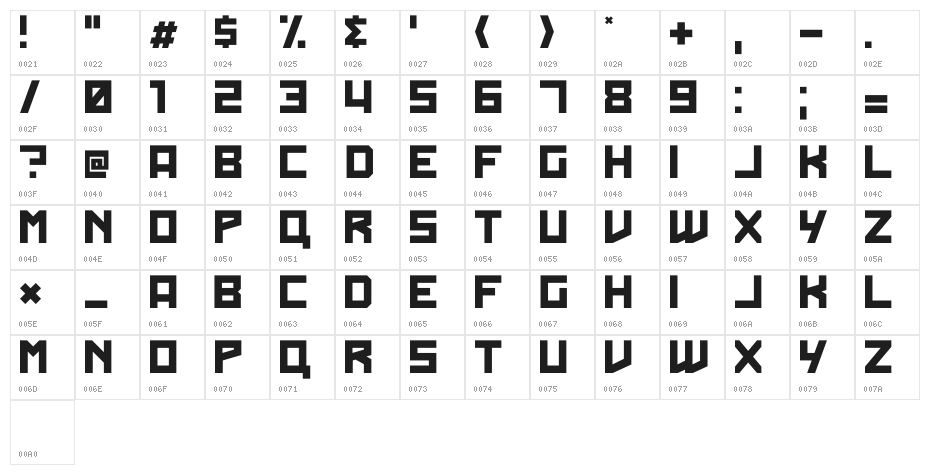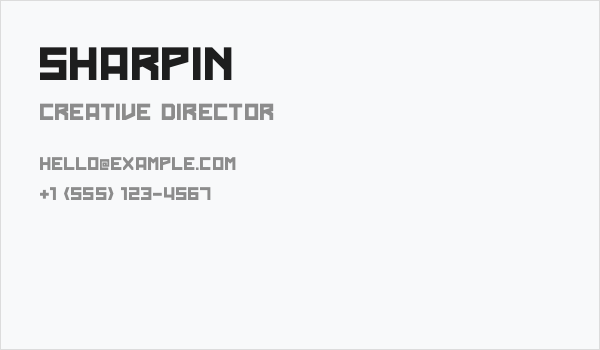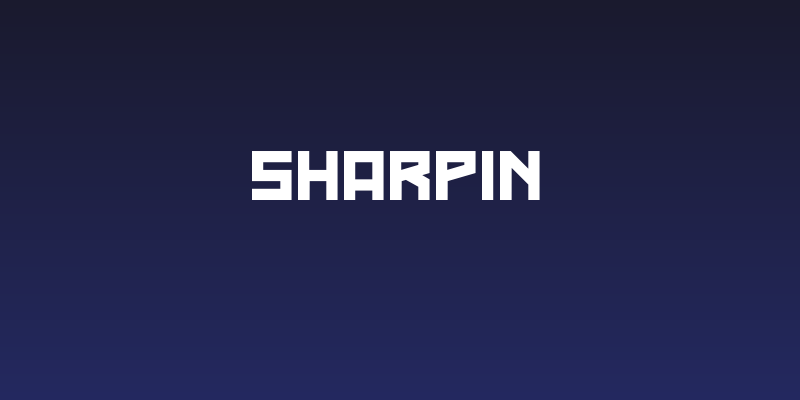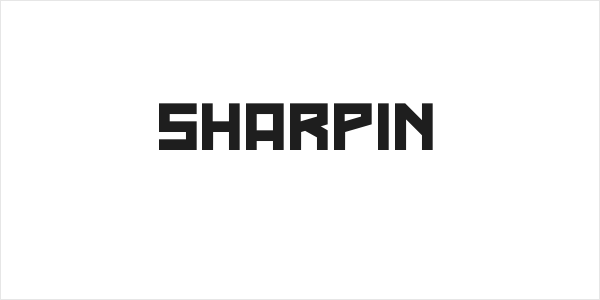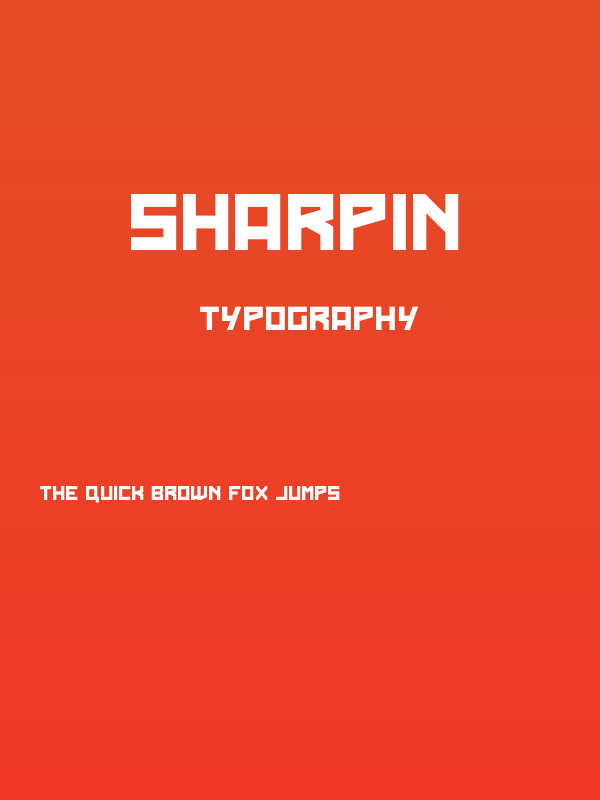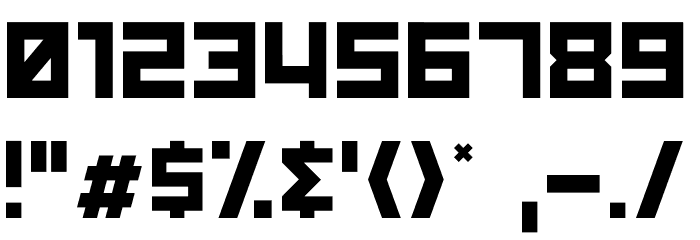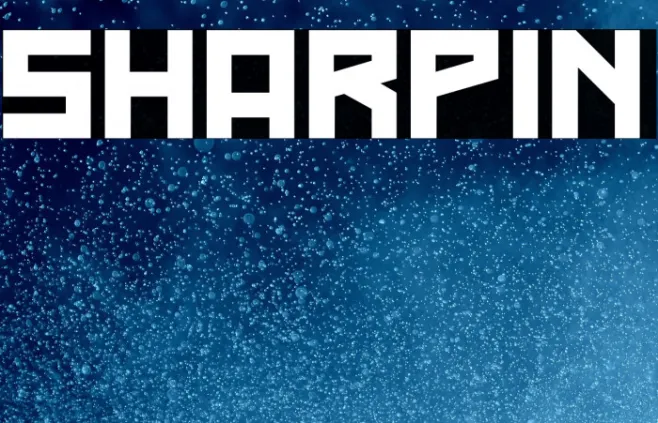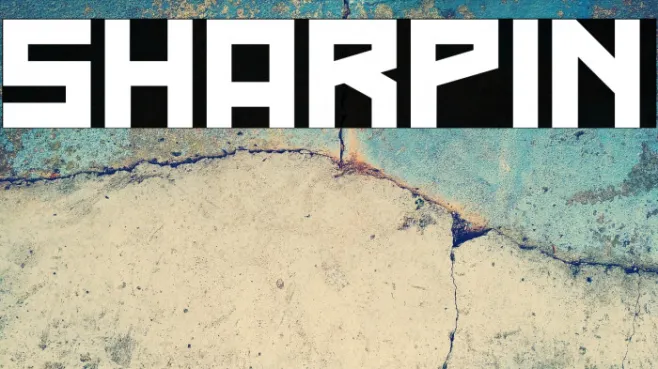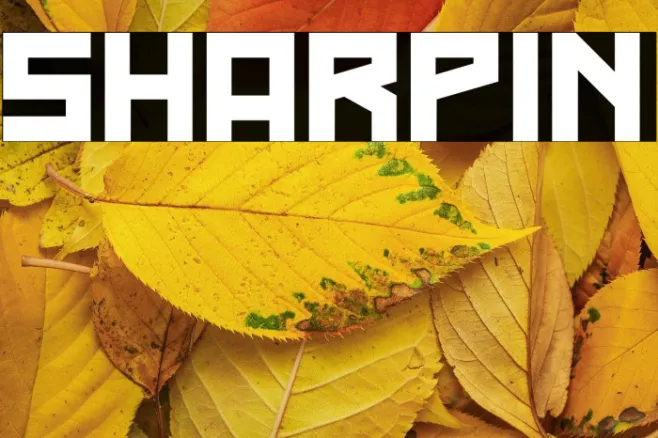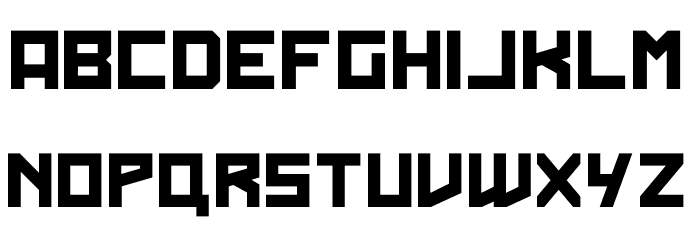
SHARPIN Font
SHARPIN Description
This font features a bold, geometric design with sharp, angular edges and a modern aesthetic. The characters are constructed with uniform stroke widths, giving them a solid and robust appearance. The uppercase and lowercase letters maintain a consistent style, emphasizing clarity and readability. The numerals and special characters follow the same geometric pattern, ensuring a cohesive look across all elements. This font's design is striking and impactful, making it ideal for attention-grabbing applications.
| Proposed Projects | Ideal for branding, posters, headlines, and digital media where a strong, modern look is desired. |